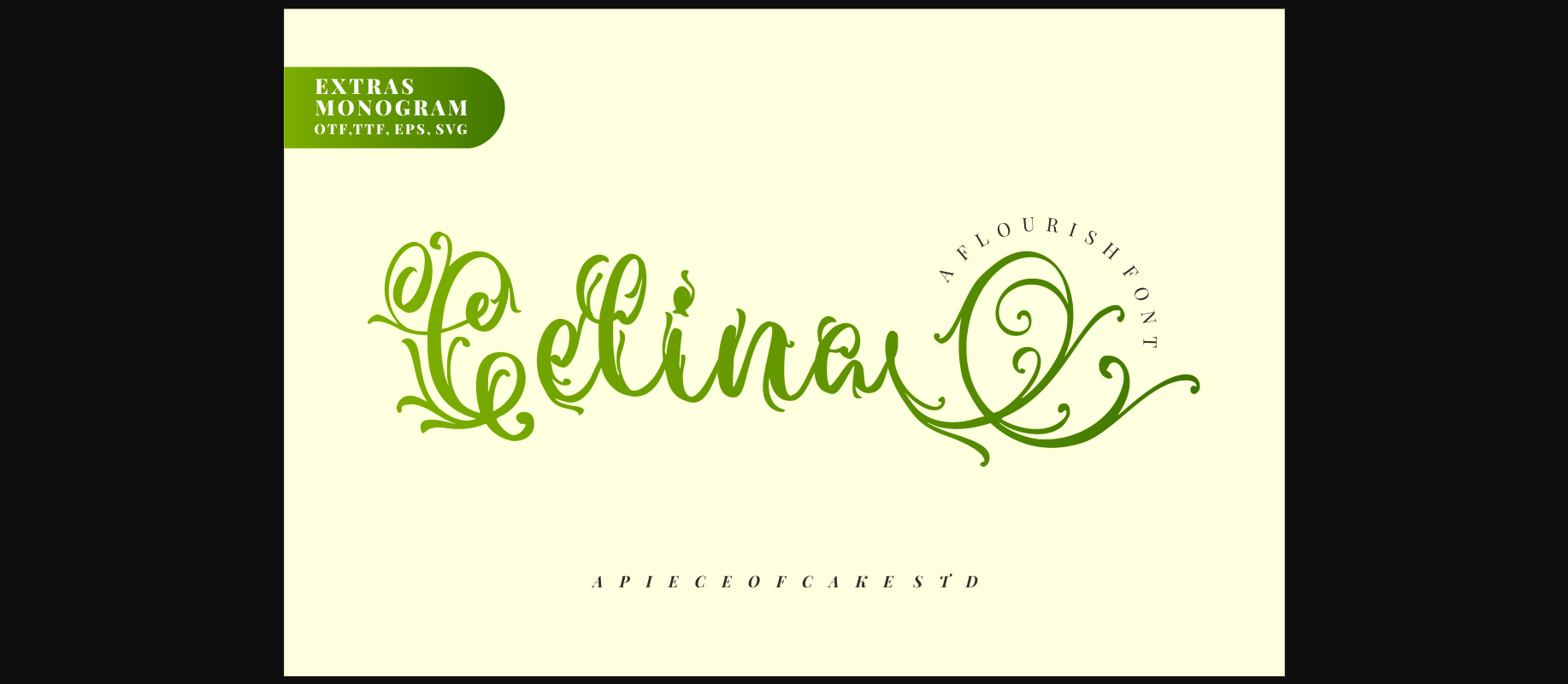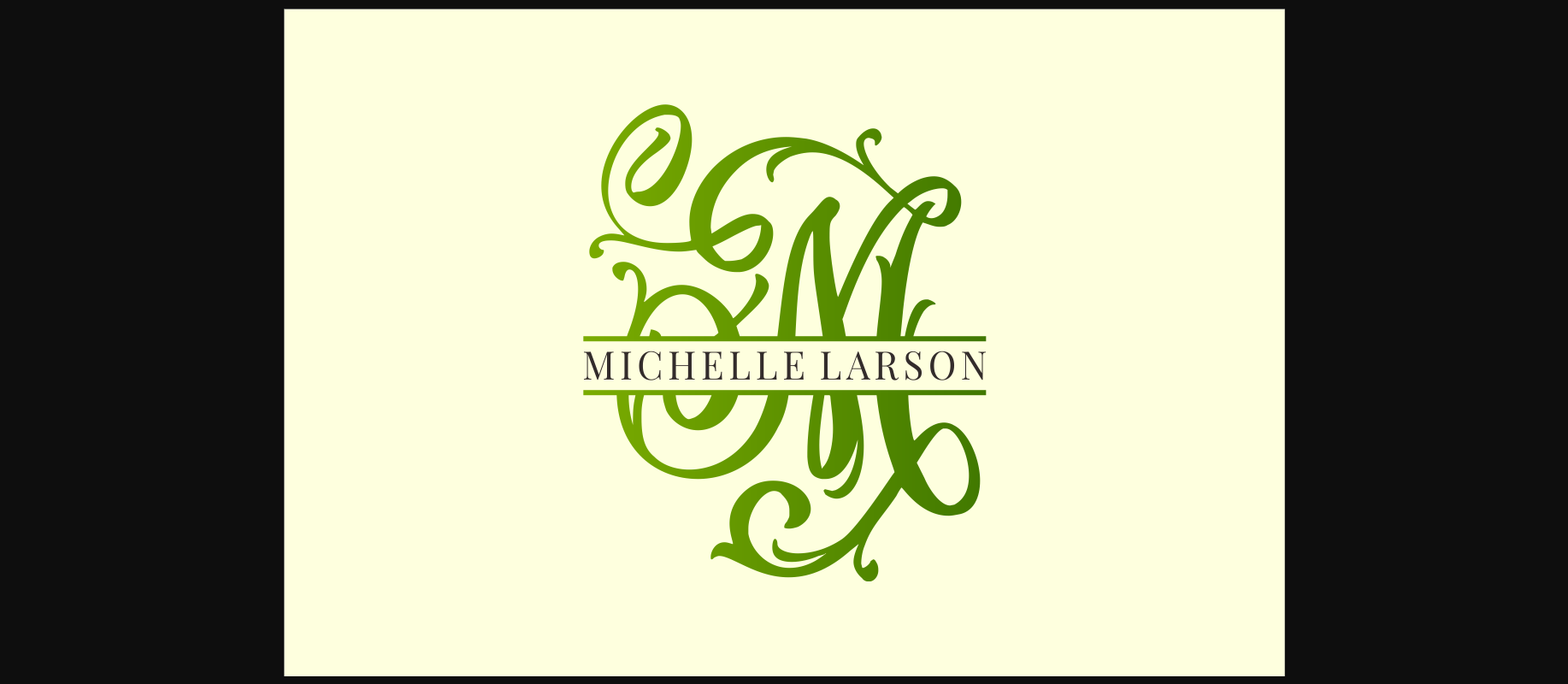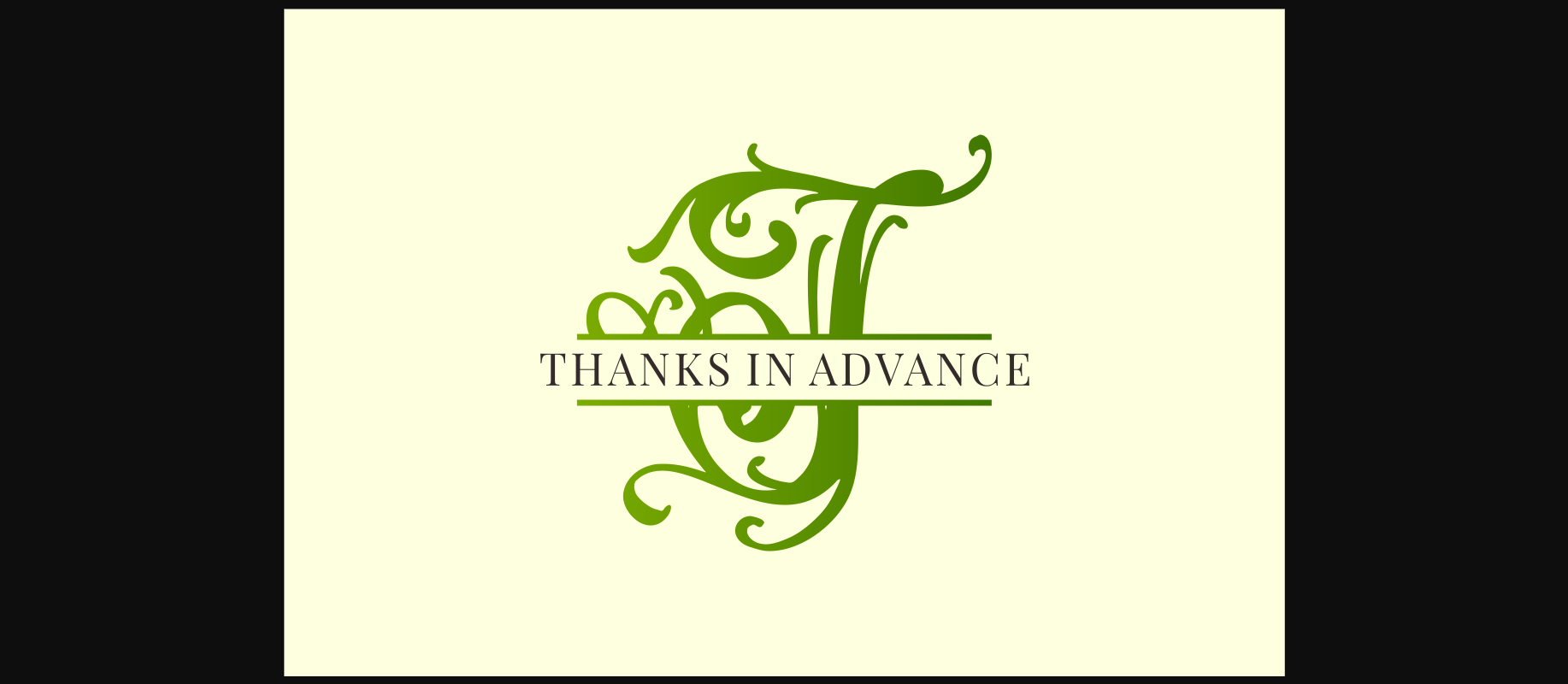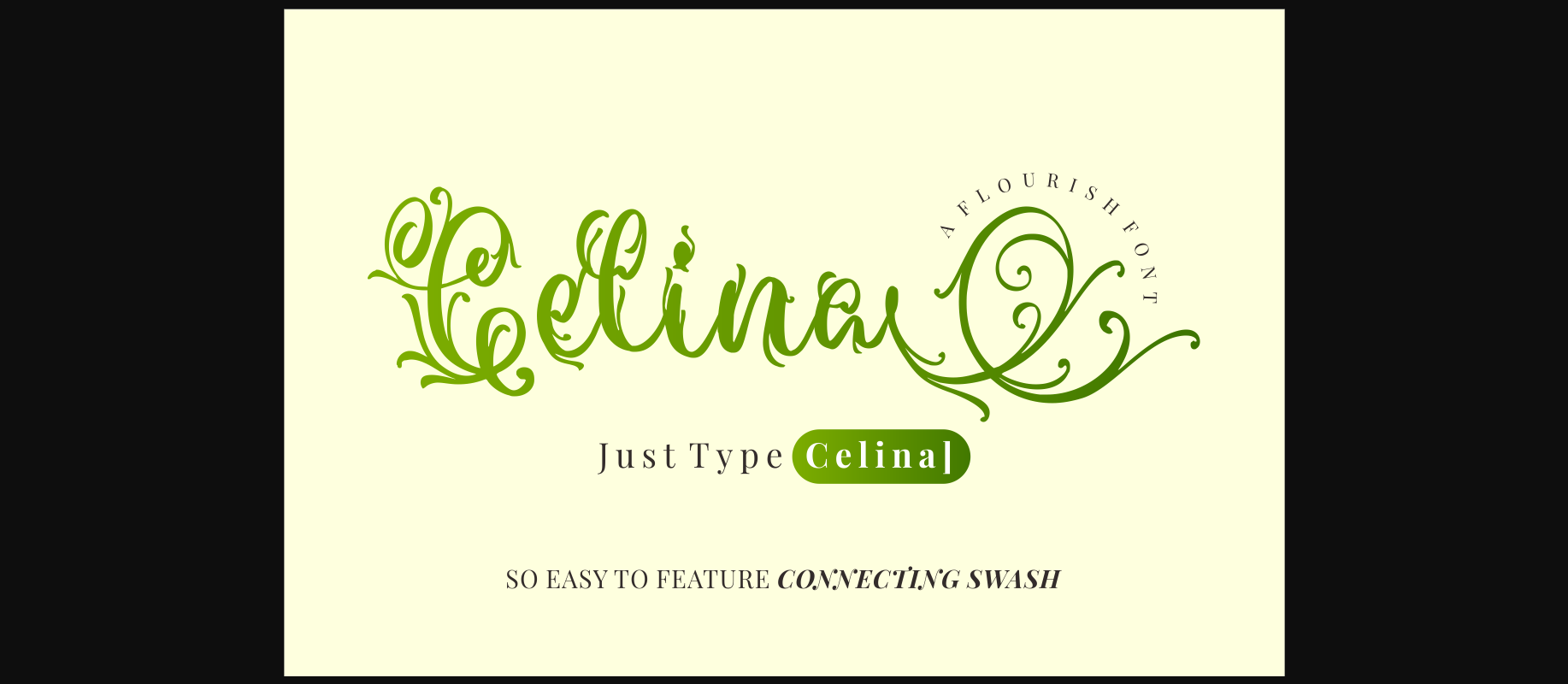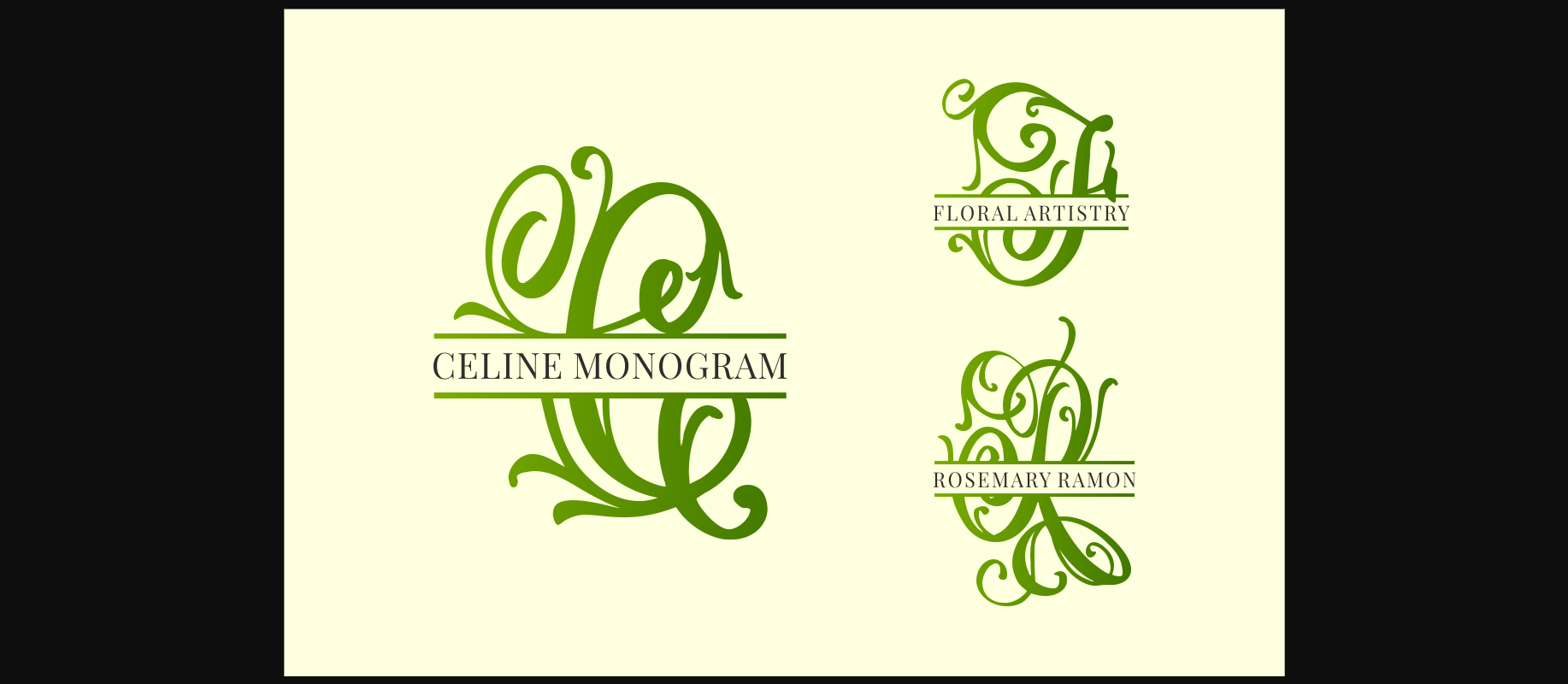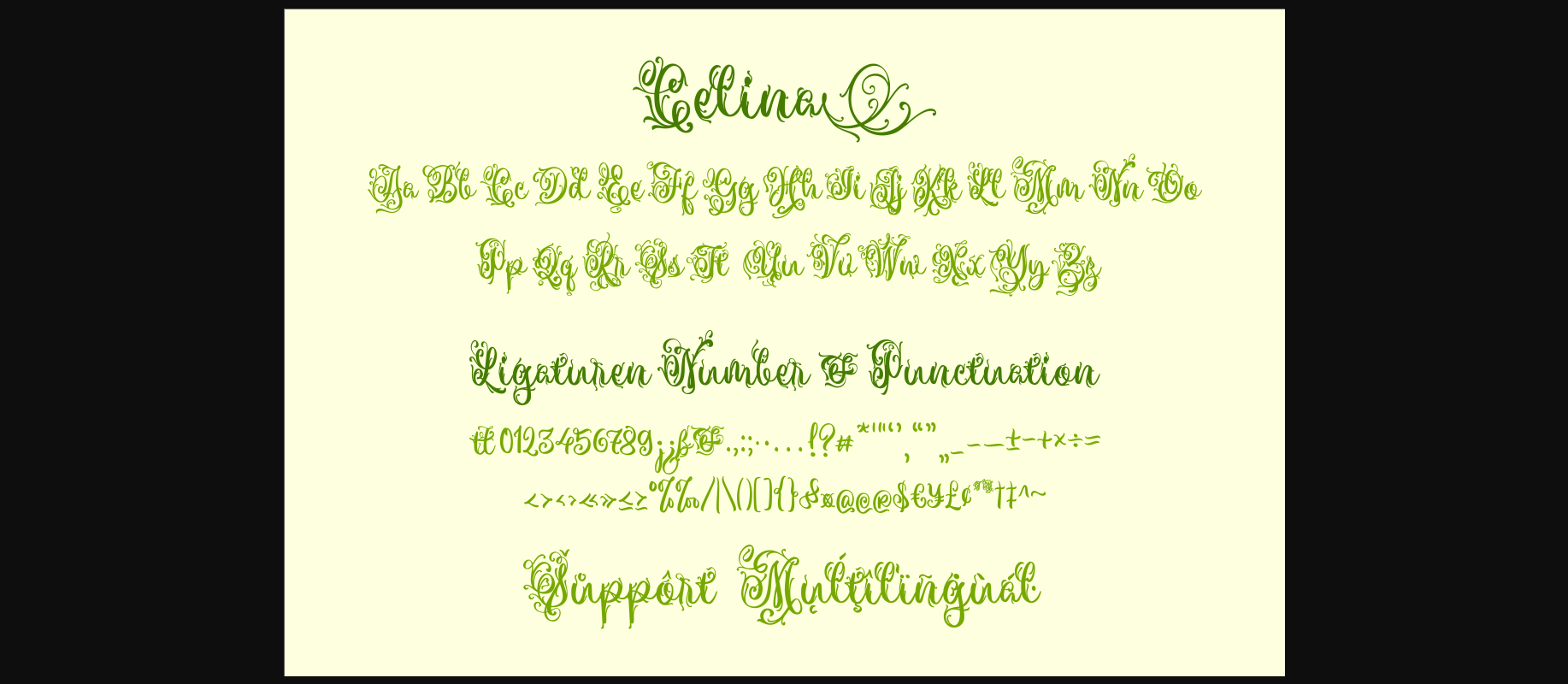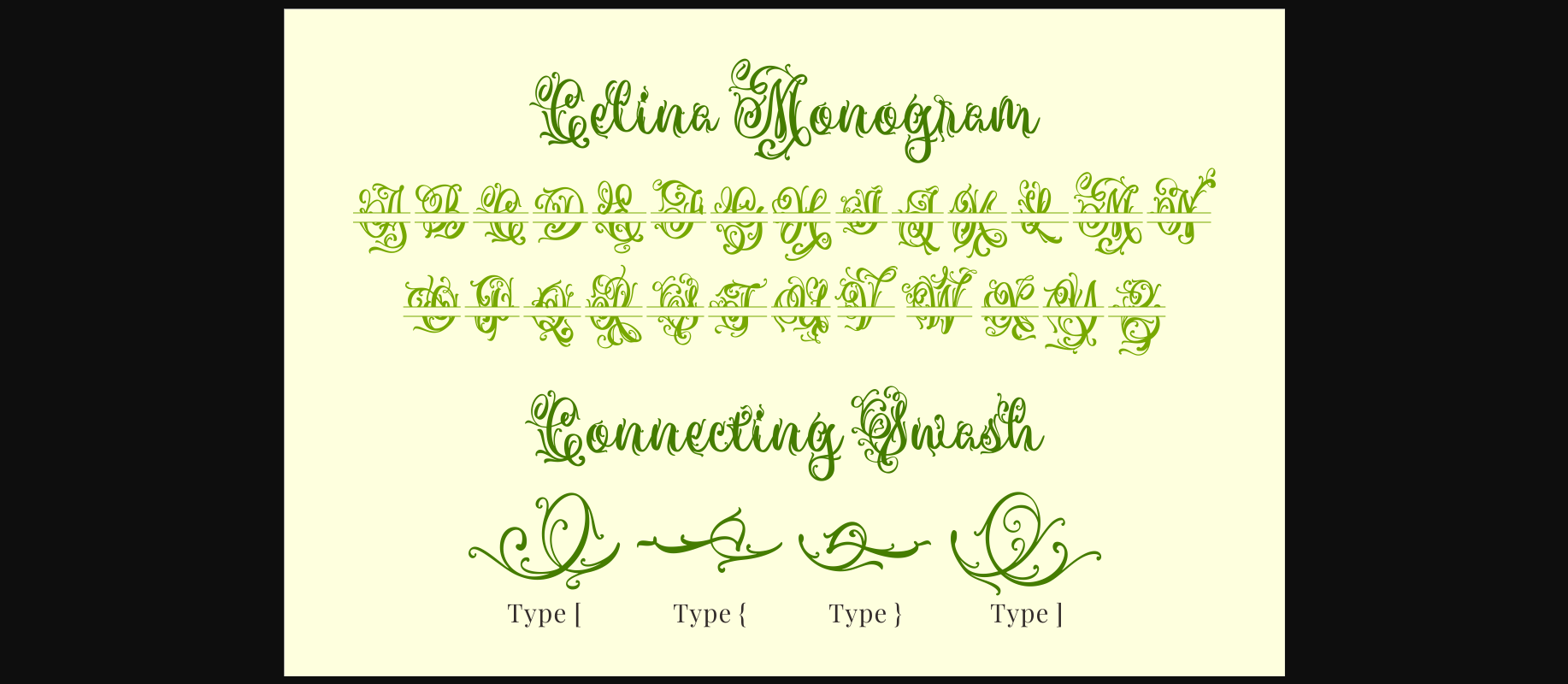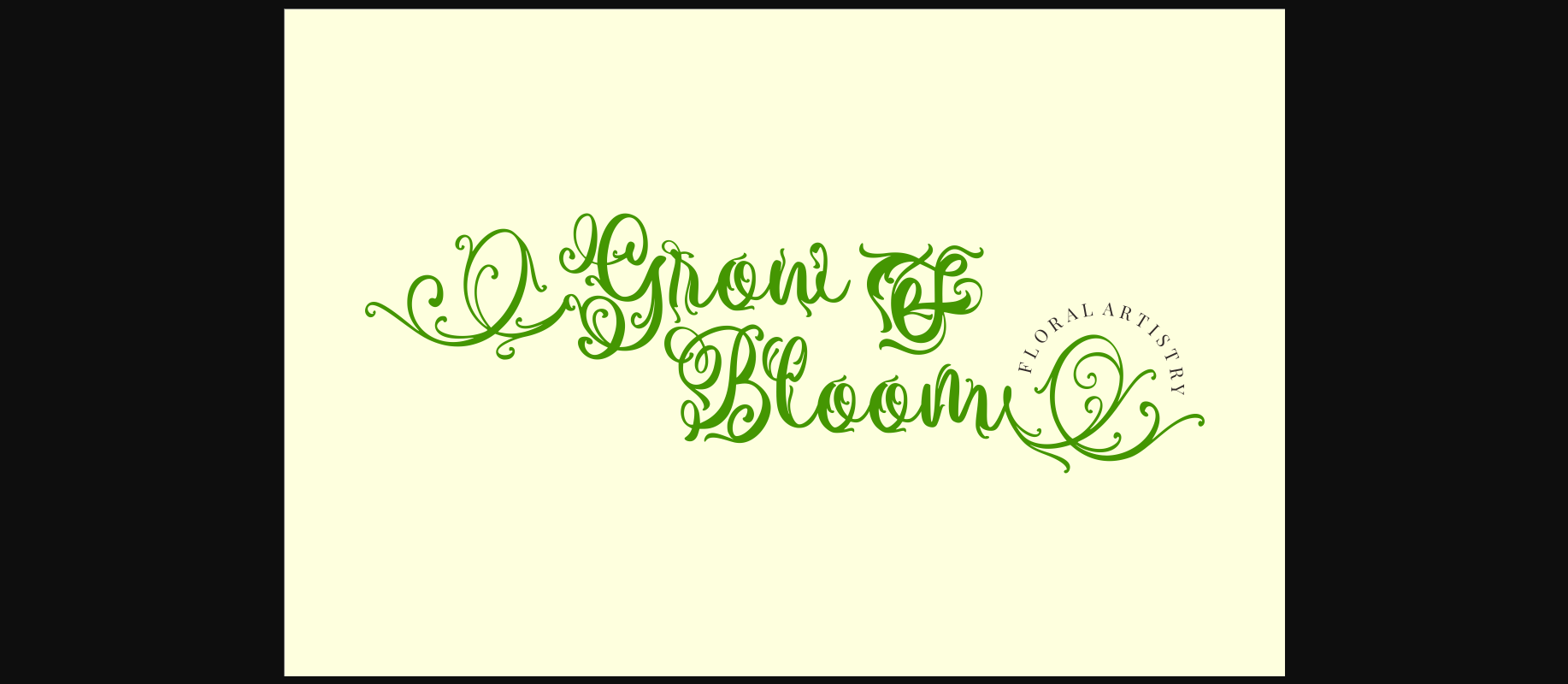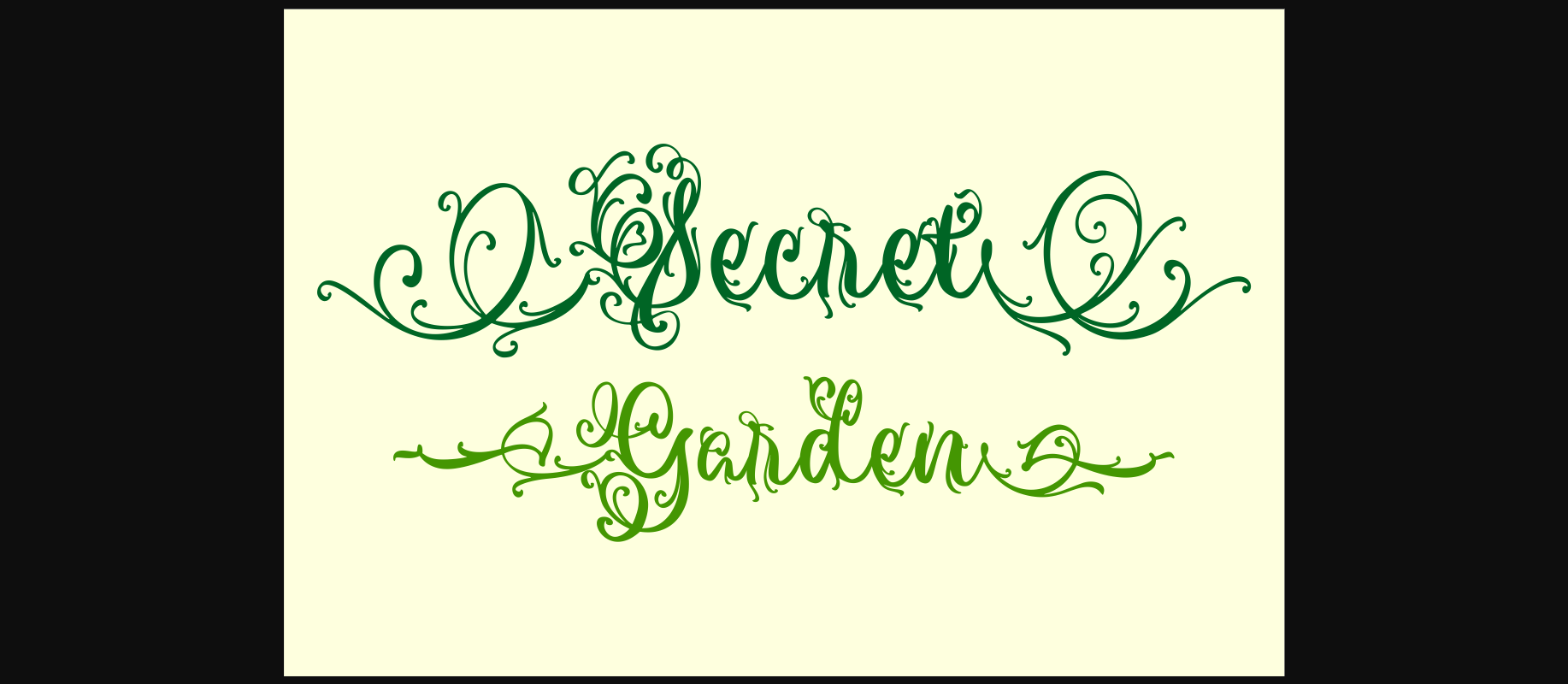
Celina Duo Font
About Celina Duo Font
Celina is a magical duo font (decorative and script). Whether you’re looking for fonts for Instagram or calligraphy scripts for DIY projects, this highly detailed and beautiful font will turn any creative idea into a true piece of art!